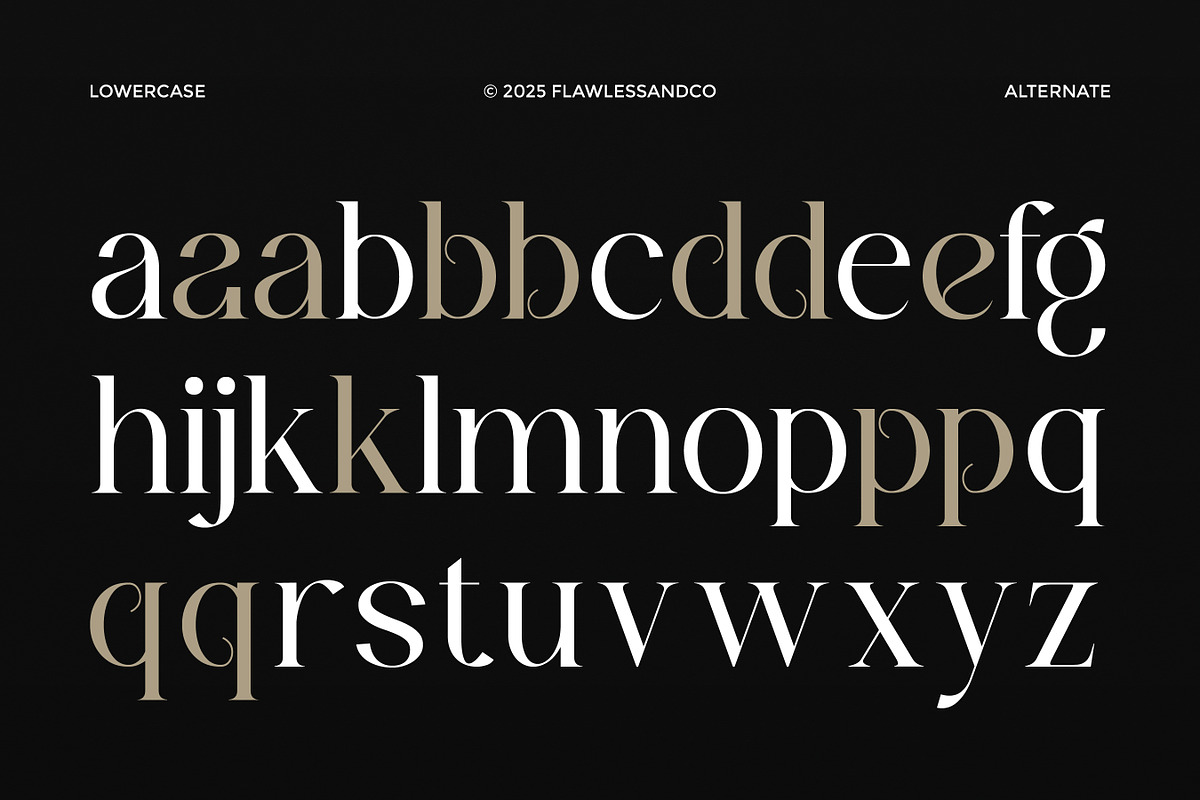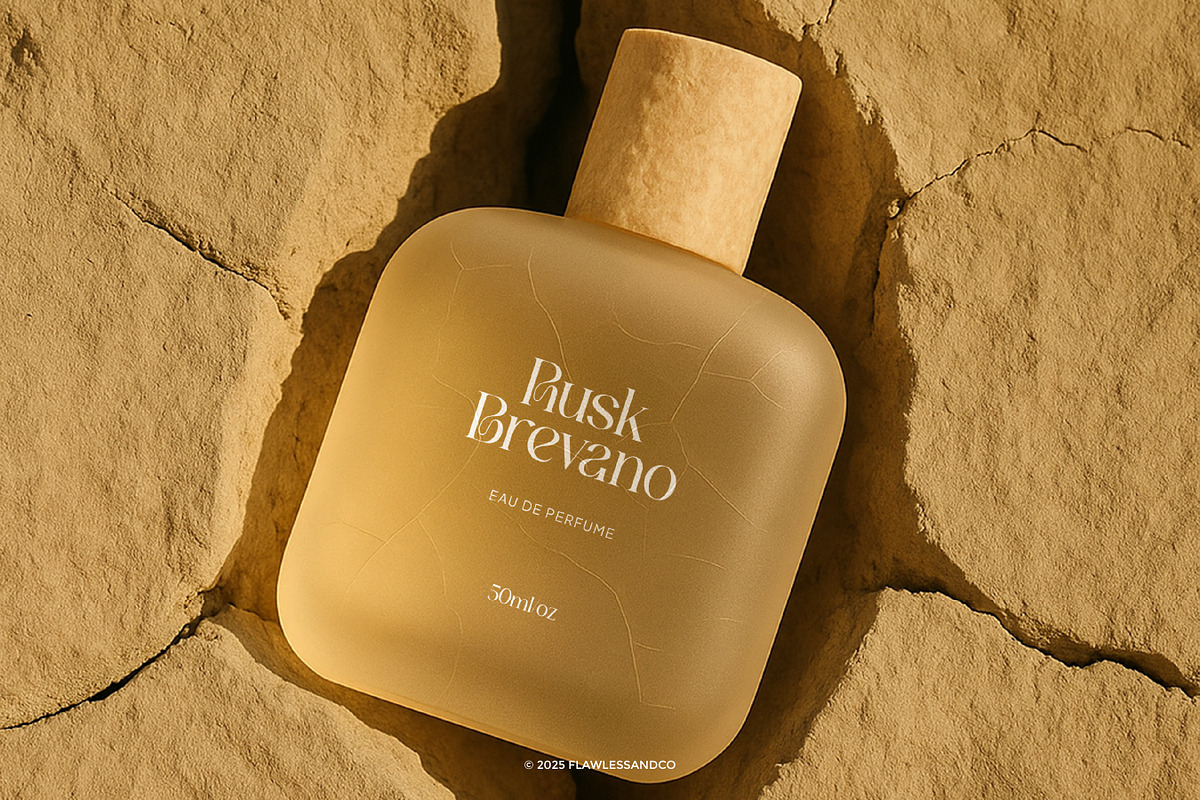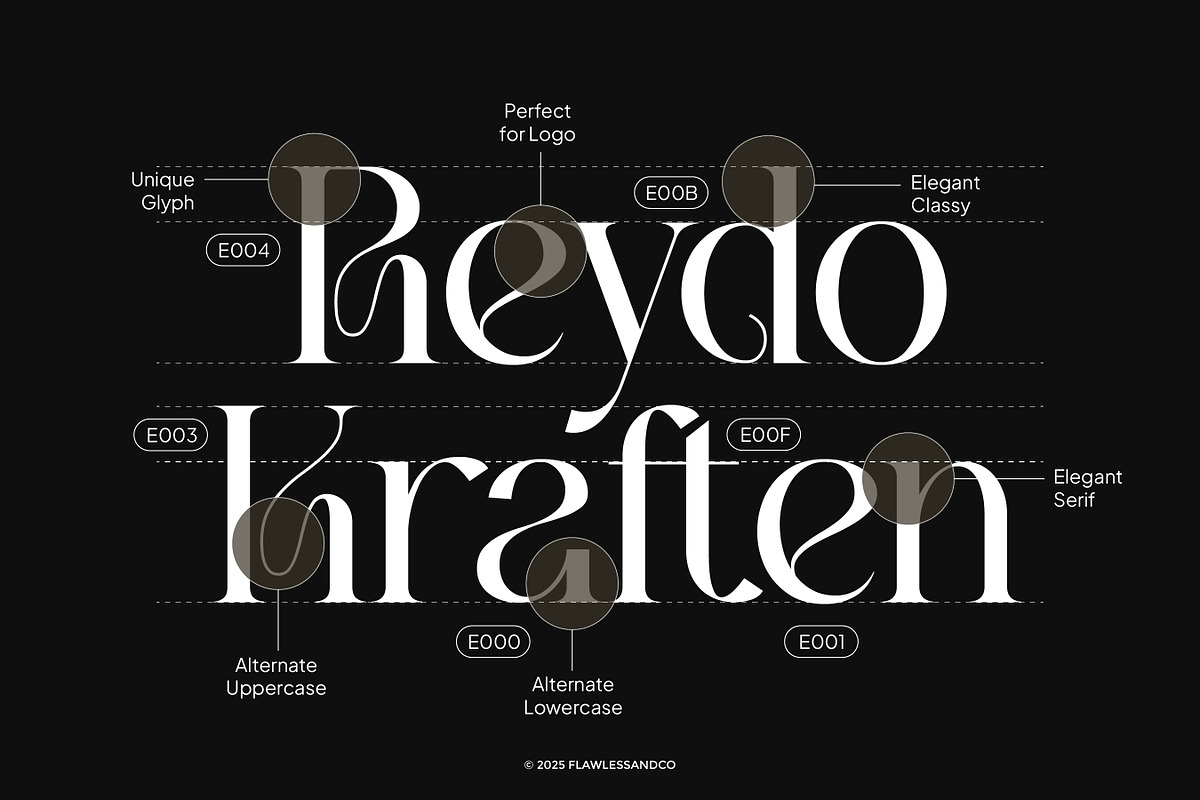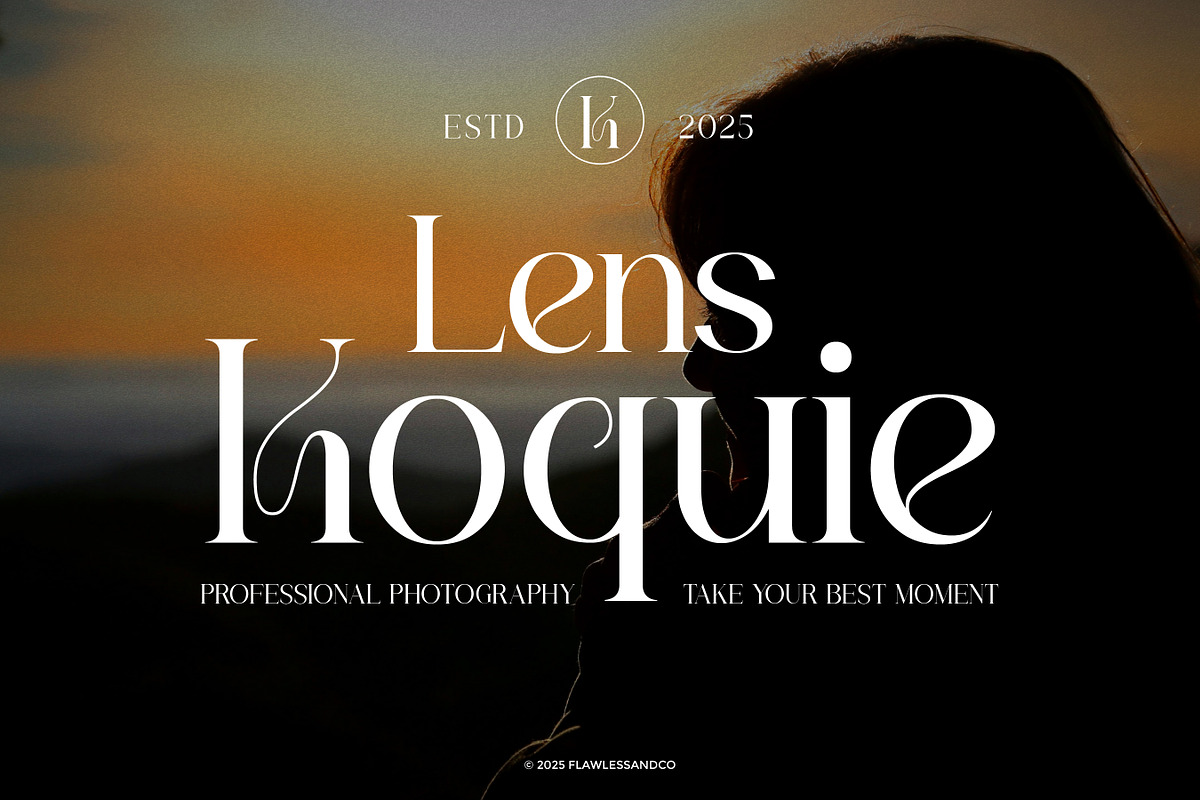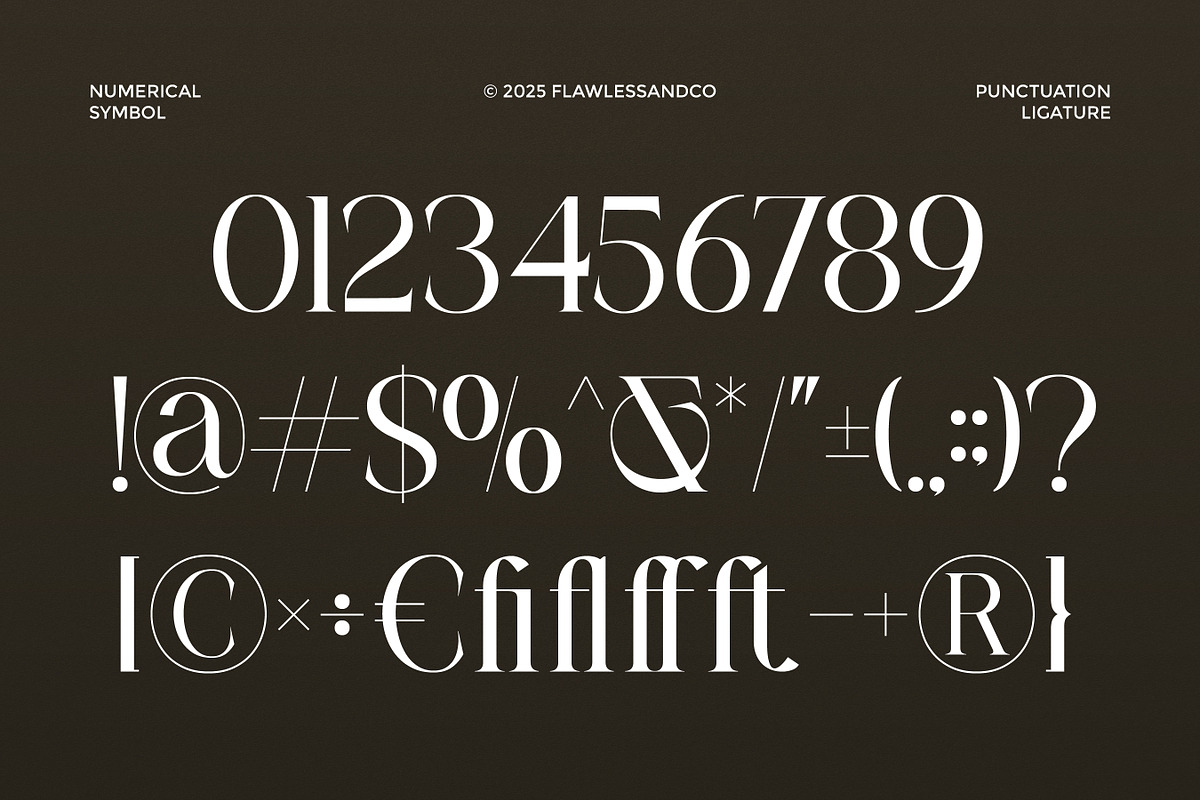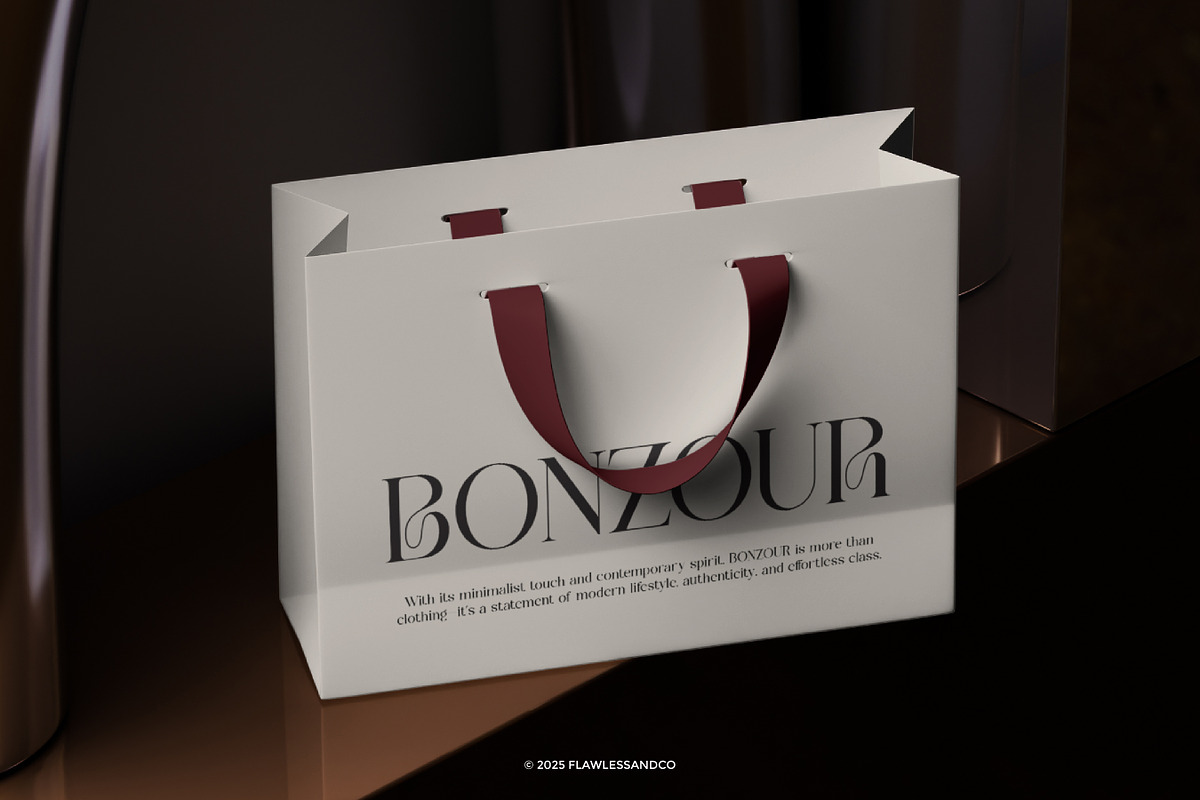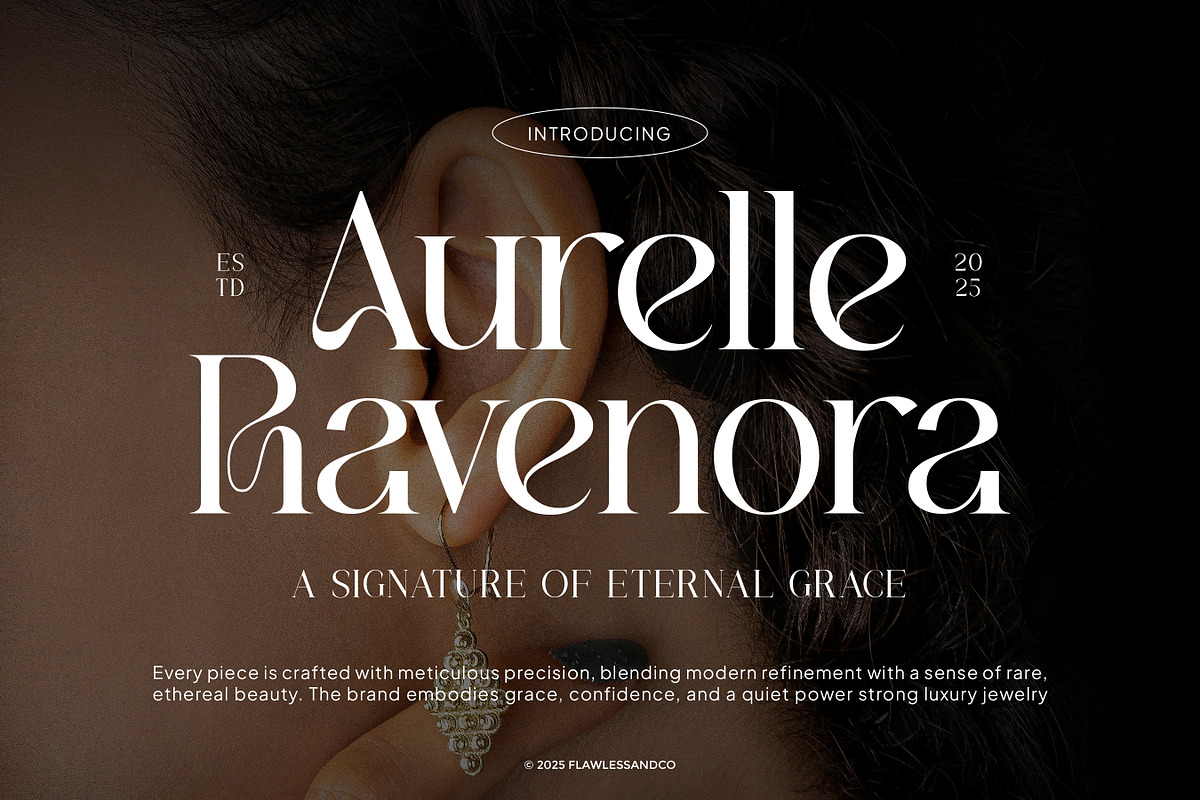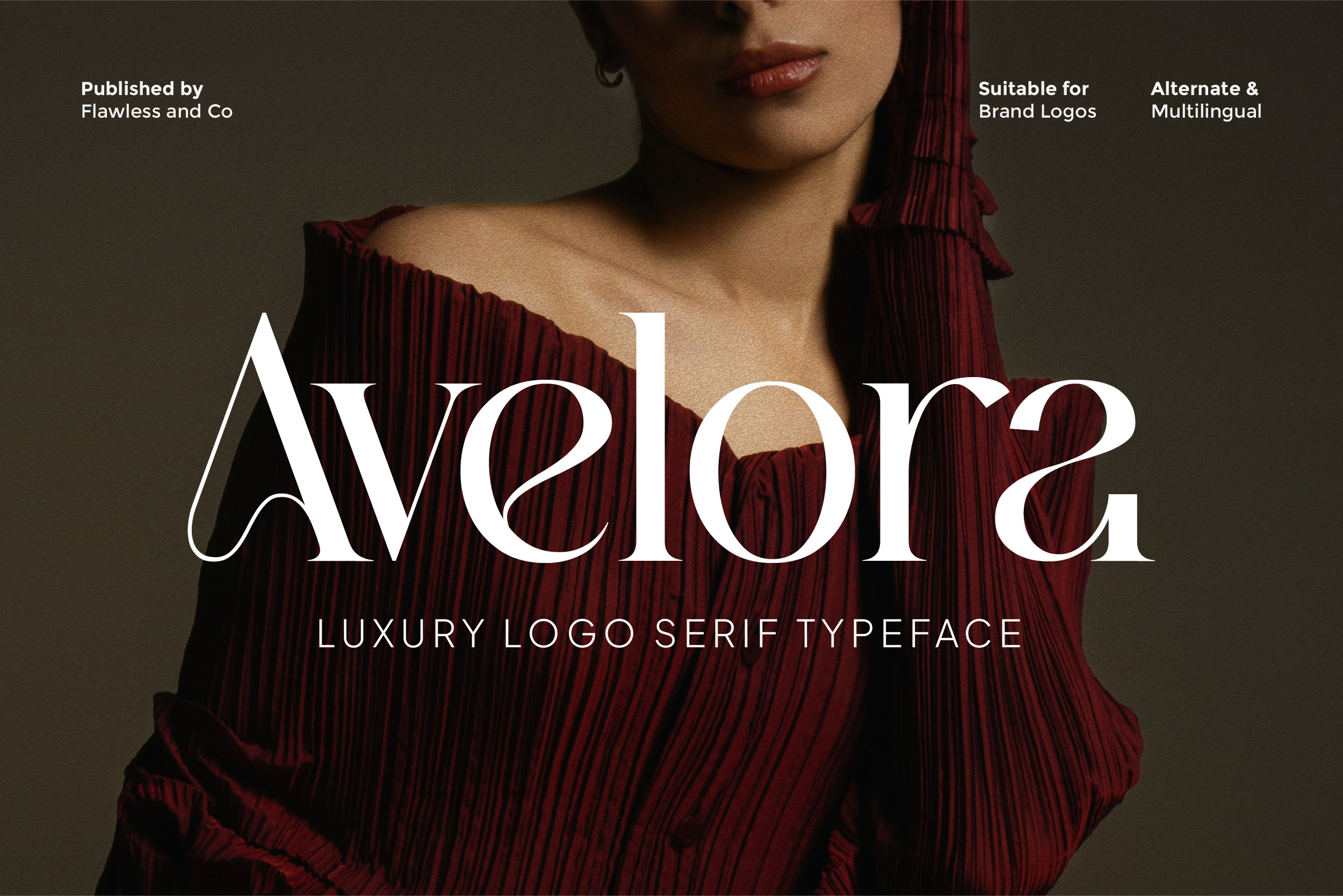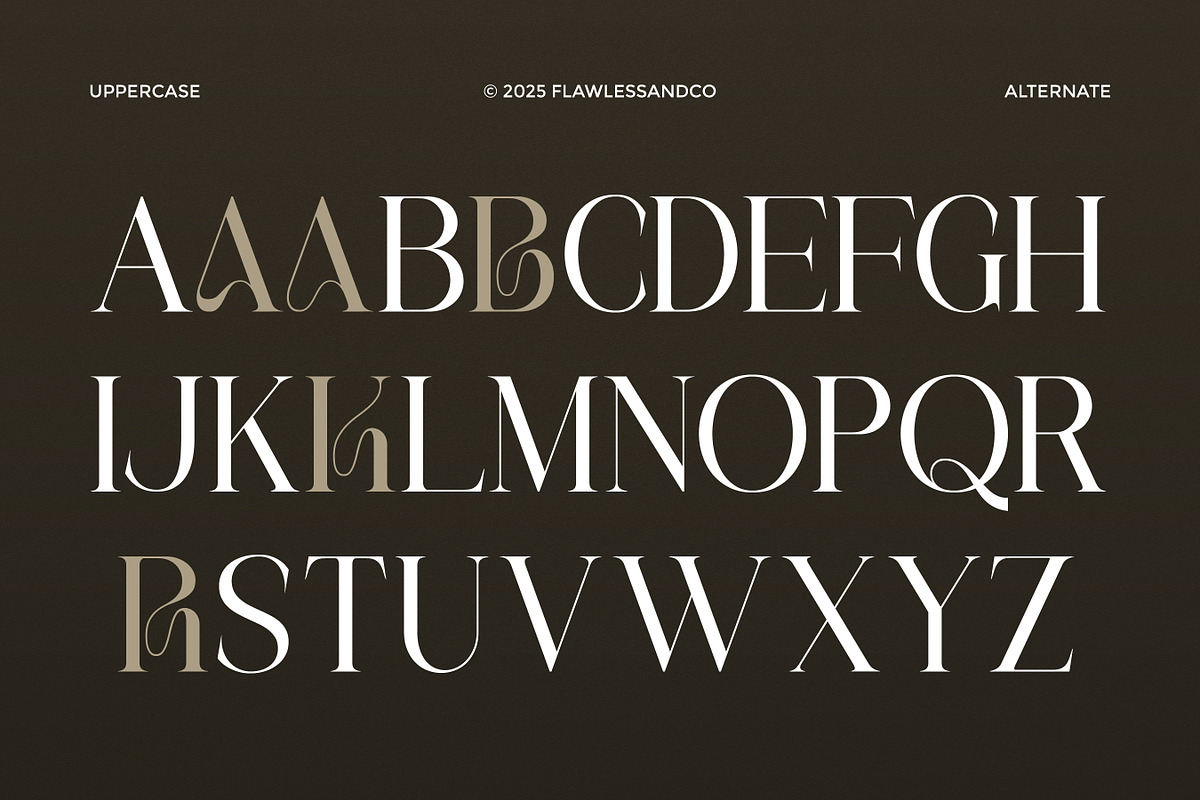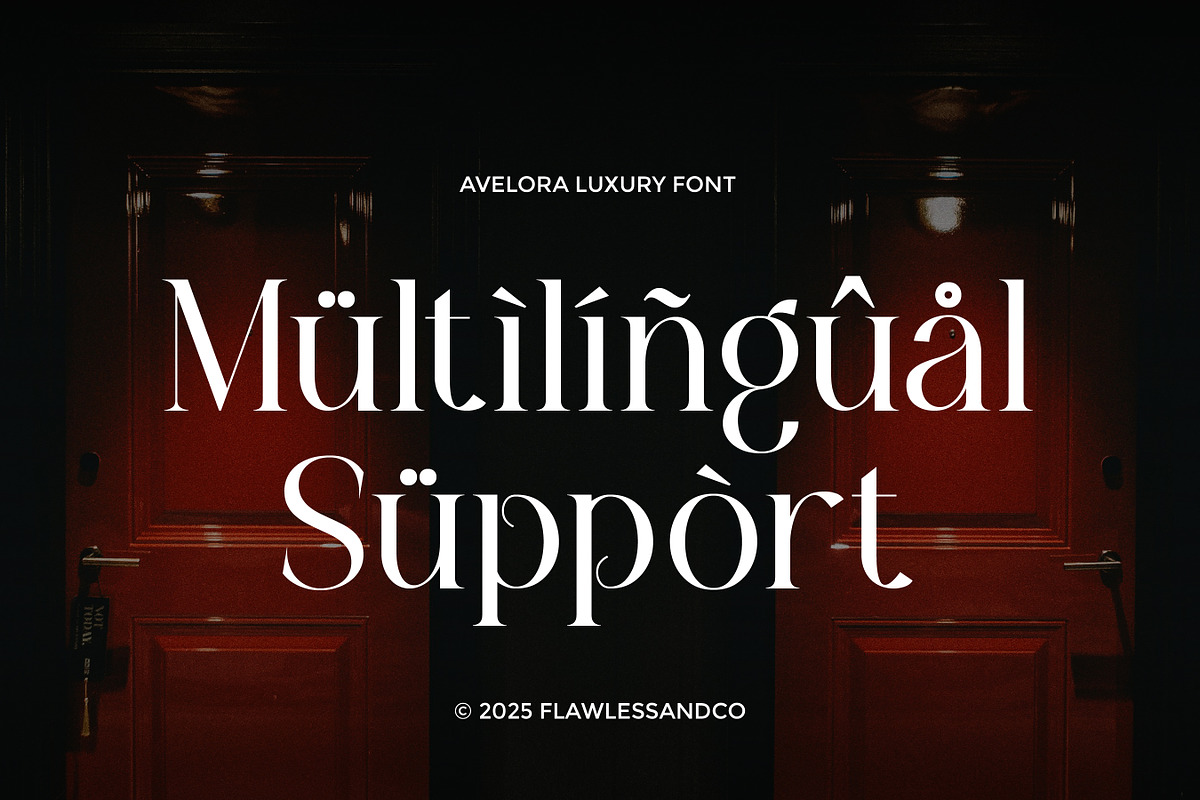
Avelora – Luxury Logo Serif Font
Avelora – Luxury Logo Serif Typeface Avelora is a refined serif typeface designed exclusively for premium branding and elegant logo identities. With its graceful curves, high-contrast strokes, and modern luxury aesthetic, Avelora brings a sophisticated presence to every project. Use Avelora to elevate fashion branding, beauty products, editorial layouts, packaging, wedding designs, or any creative project that demands a high-end visual signature. Features: - Uppercase & Lowercase - Alternates & Ligatures - Numerals & Punctuation - Multilingual Support Who Should Use Avelora? Avelora is perfect for designers and brands who want a refined, luxurious, and modern serif style. It’s especially ideal for: - Brand & Logo Designers – Perfect for crafting upscale, memorable identities. - Fashion & Beauty Brands – Suits high-end aesthetics with elegance and confidence. - Creative Agencies – Great for premium client projects needing a polished, stylish look. - Editorial & Magazine Designers – Ideal for striking headlines and elegant layouts. - Packaging Designers – Works beautifully for luxury products, perfumes, skincare, and jewelry. - Wedding & Event Creators – Adds a sophisticated, timeless touch to invitations and stationery. A Must-Have Font for “Brand and Logo” Creators and Designer Avelora is crafted for those who want to build strong, luxurious, and memorable brand identities. Its elegant serif curves, refined details, and timeless character make it the perfect choice for designers seeking a premium, high-end visual style in every branding project. Why Choose Avelora for “Brand and Logo” Projects? Avelora is the perfect choice for designers who want to create branding with a luxurious and timeless appeal. Its elegant serif details bring a refined, high-class aesthetic that instantly elevates any logo or visual identity. The balanced letterforms deliver strong professional presence, making your brand look polished and unforgettable. With beautifully crafted alternates, Avelora also gives you the creative freedom to build unique and custom logo marks that stand out in competitive industries like fashion, beauty, lifestyle, and luxury branding. Suitable For: - Luxury branding and logo design - Fashion and beauty packaging - High-end editorial and magazine layouts - Minimalist product labels - Wedding and event stationery - Modern website headers and UI branding - Social media aesthetics and marketing visuals - Boutique, jewelry, and lifestyle brand identity If you need help, just write me! Thanks so much for checking out my shop!